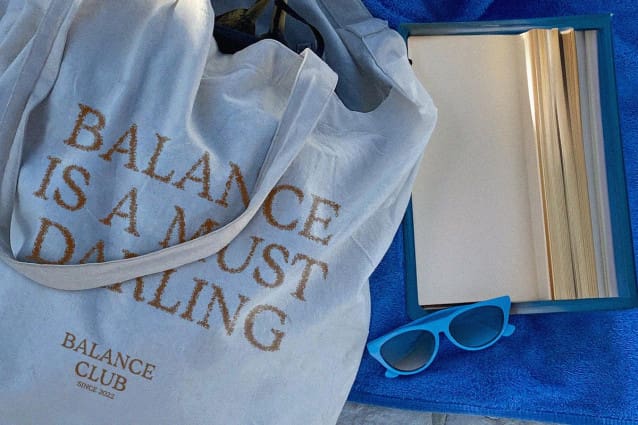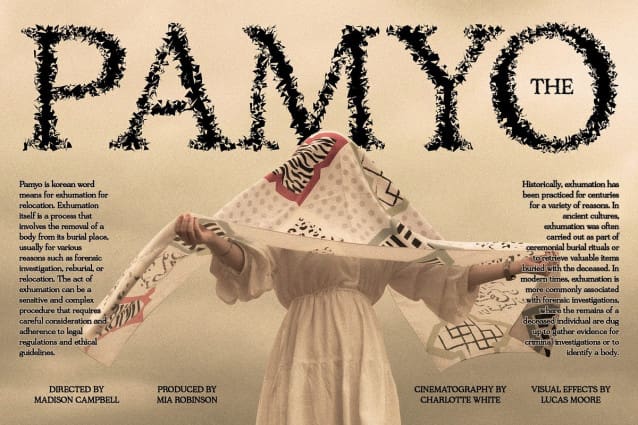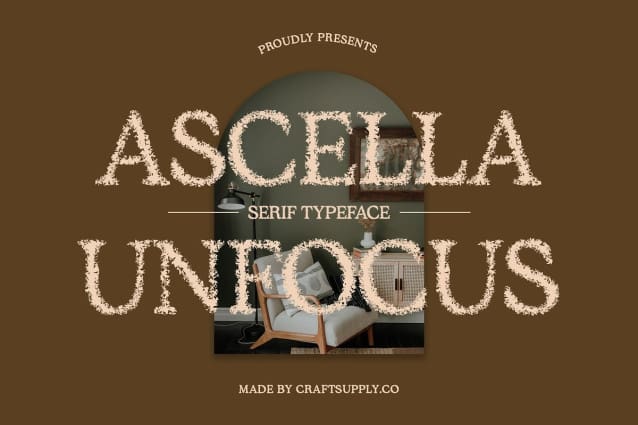
Ascella Unfocus Font
Ascella Unfocus presents a modern serif font featuring an elegant unfocus effect, perfect for designs seeking a subtle yet mysterious aesthetic. This font is ideal for applications such as wedding invitations, luxury branding, art posters, and promotional materials where elegance and creativity take center stage with a unique artistic touch.
Ideal for Elegance and Creativity Perfect for wedding invitations, luxury branding, art posters, and promotional materials, Ascella Unfocus highlights elegance and creativity with its sophisticated design. The unfocus effect subtly enriches the text, making it stand out with a touch of artistic flair.
Versatile and Creative With its elegant unfocus effect, Ascella Unfocus offers versatility across different design contexts. Whether used for elegant event invitations or upscale branding campaigns, this font elevates the visual appeal of your projects with its modern and artistic aesthetic.